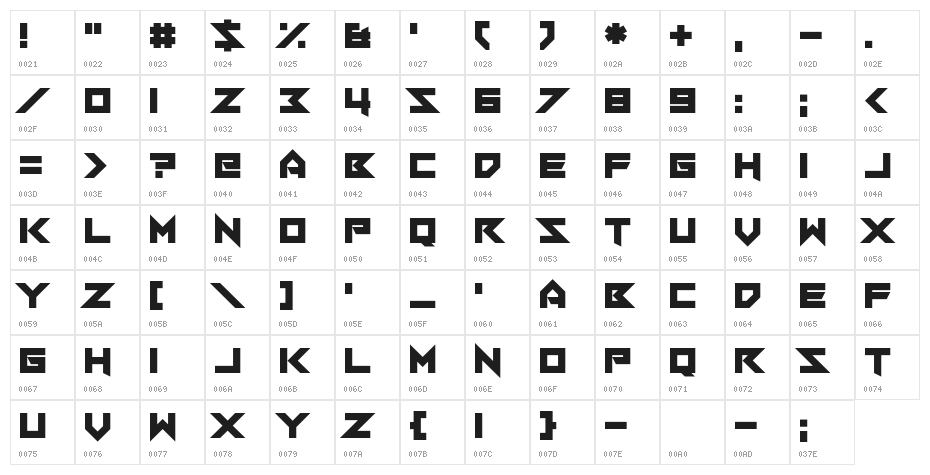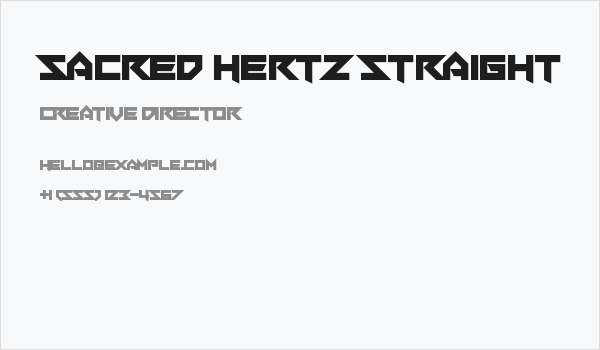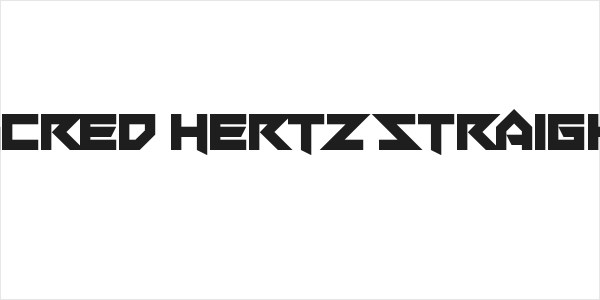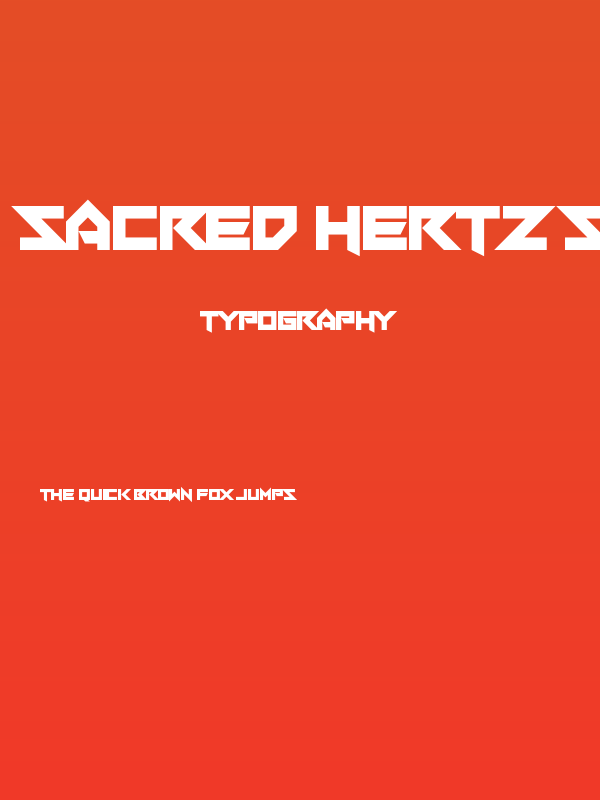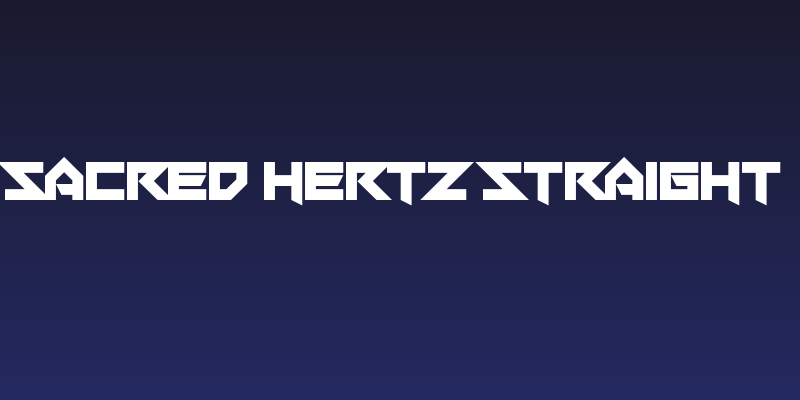
Sacred Hertz Straight Font
Sacred Hertz Straight Description
This font features a bold, geometric design with sharp angles and a futuristic aesthetic. The characters are constructed with straight lines and triangular elements, giving them a distinct, edgy appearance. The uppercase letters are uniform in height, while the lowercase letters maintain the same angular style, creating a cohesive look. Numbers and special characters are designed to match the boldness and geometric nature of the alphabet, making the font suitable for modern and tech-oriented designs. The overall style is striking and attention-grabbing, ideal for projects that require a strong visual impact.
| Overall Style | Futuristic, Modern |
| Proposed Projects | Ideal for tech branding, sci-fi posters, video game titles, and modern logos. |